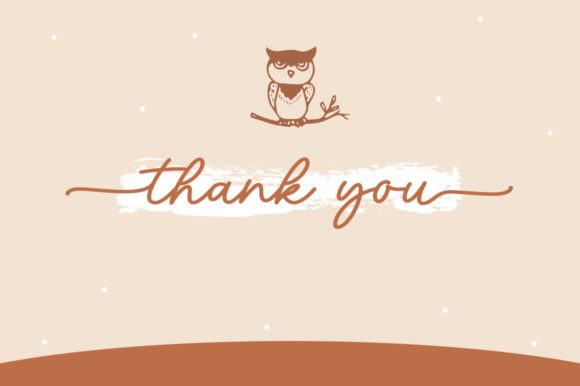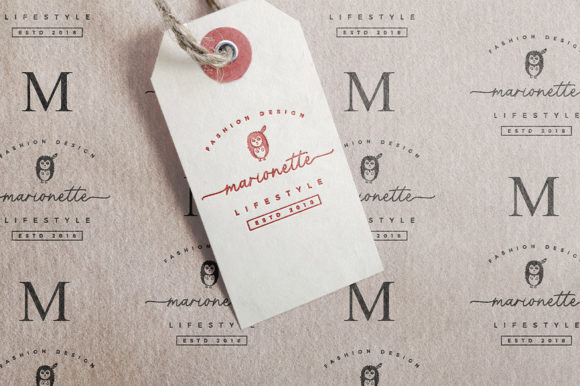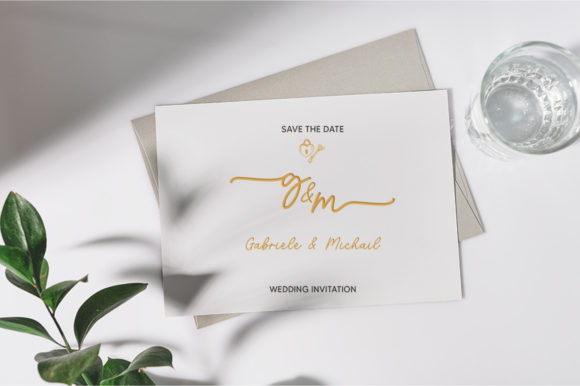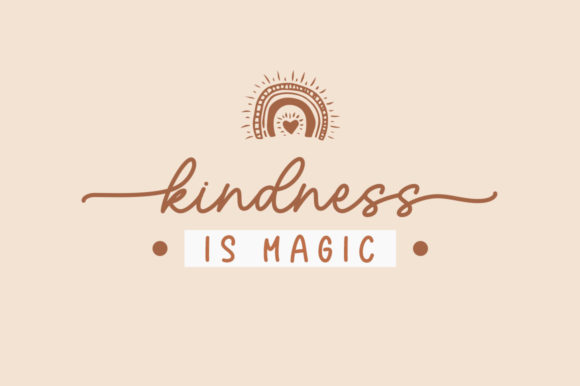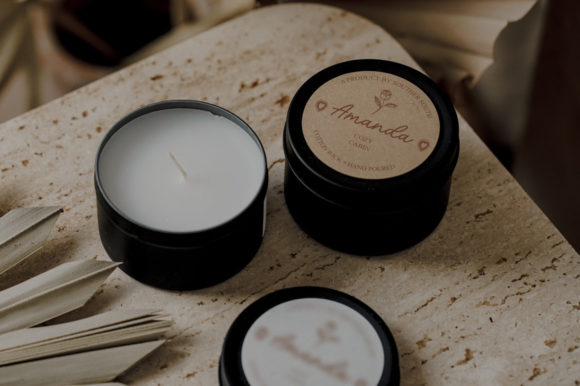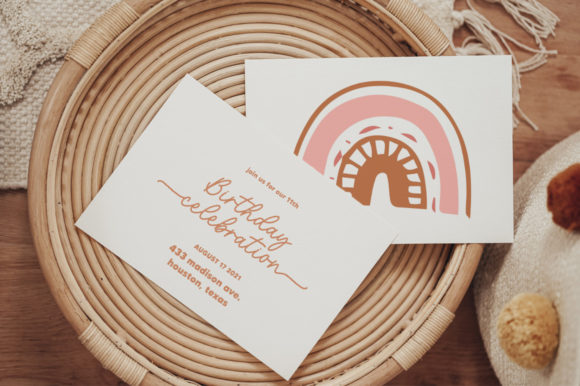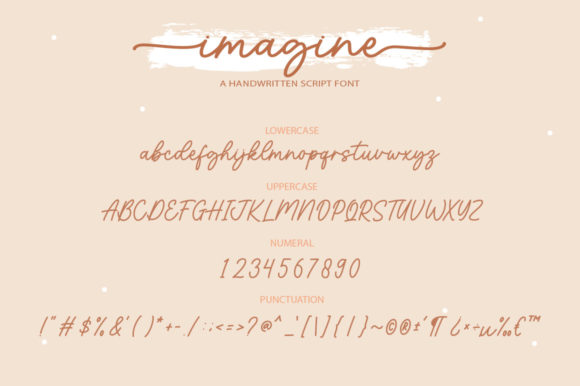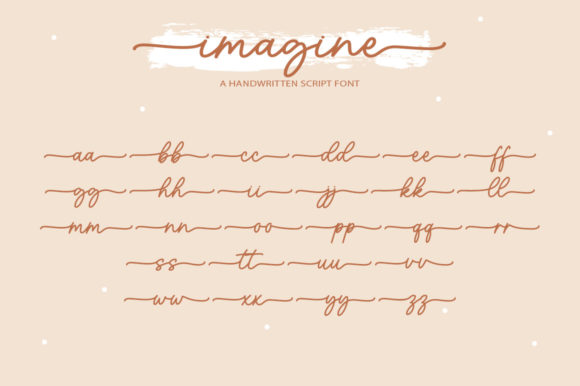
Imagine Font
About Imagine Font
Imagine is a stunning and refined script font that exudes beauty and sophistication. With its classy, elegant, and modern look, this font is perfect for a wide range of applications including logos, branding, invitations, stationery, wedding designs, social media posts, and more. Imagine’s versatile style allows it to adapt seamlessly to various design projects, adding a touch of elegance and refinement. Moreover, Imagine is PUA encoded, which means you can easily access all the glyphs and swashes it offers, providing you with effortless customization options. Unlock the full potential of Imagine and let its exquisite charm elevate your designs to new heights of visual appeal.